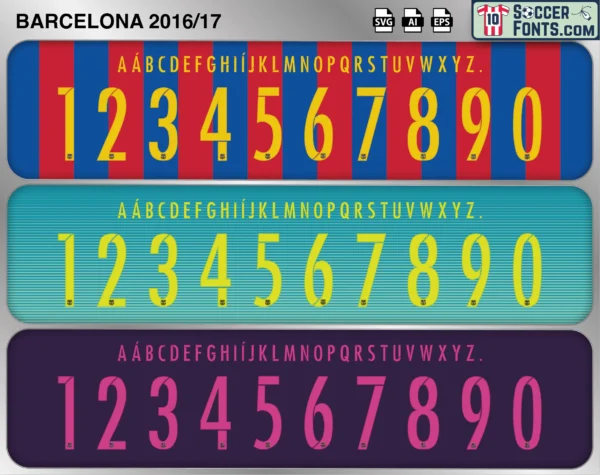
FC Barcelona 2016-17 Font
The FC Barcelona 2016-17 font is an editable soccer jersey lettering design in vector format inspired by the FC Barcelona kit style used during the 2016-17 football season. This football font artwork is prepared for football shirt recreations, custom jersey projects, football kit mockups and sports graphic design workflows.
The 2016-17 season was the final campaign of Luis Enrique’s tenure as FC Barcelona manager and featured another highly competitive year for one of Europe’s elite clubs. Barcelona relied on the remarkable attacking trio of Lionel Messi, Luis Suárez and Neymar, supported by key players including Andrés Iniesta, Sergio Busquets, Gerard Piqué, Jordi Alba and Marc-André ter Stegen. The squad remained among the most talented in world football and continued to challenge for major honors in both domestic and European competitions. Throughout the season, Messi maintained his extraordinary level of performance while Neymar and Suárez continued to form part of one of the most feared attacking partnerships of the modern era.
The FC Barcelona 2016-17 font became associated with one of the most unforgettable nights in UEFA Champions League history. Barcelona produced the famous “La Remontada” against Paris Saint-Germain, overturning a 4-0 first-leg deficit with a dramatic 6-1 victory at Camp Nou to advance to the quarter-finals. Although the club was later eliminated by Juventus, the comeback remains one of the defining moments of modern European football. Barcelona also lifted the Copa del Rey after defeating Deportivo Alavés in the final, giving Luis Enrique a trophy-winning farewell. FC Barcelona shirts from the 2016-17 season remain highly sought after among football shirt collectors and supporters because of their connection to La Remontada, the MSN era and the final season of a successful managerial cycle. The FC Barcelona 2016-17 font reflects a memorable chapter in the club’s modern history filled with drama, star power and iconic football moments.